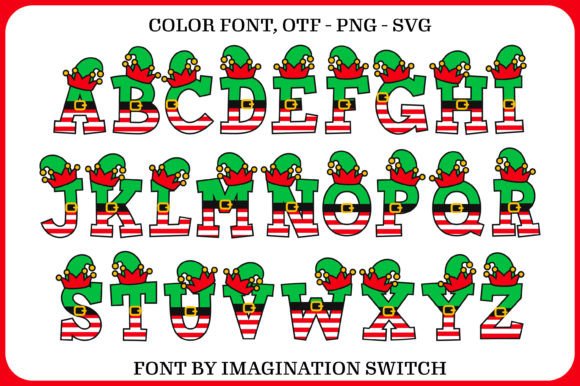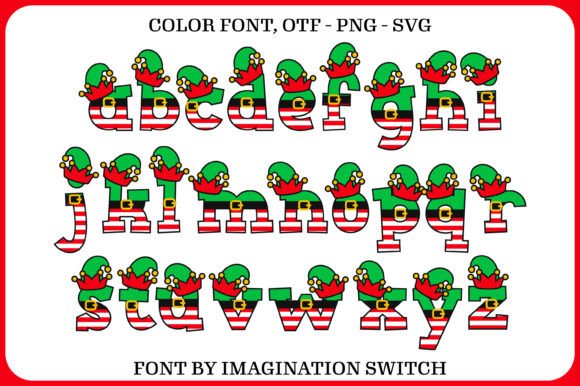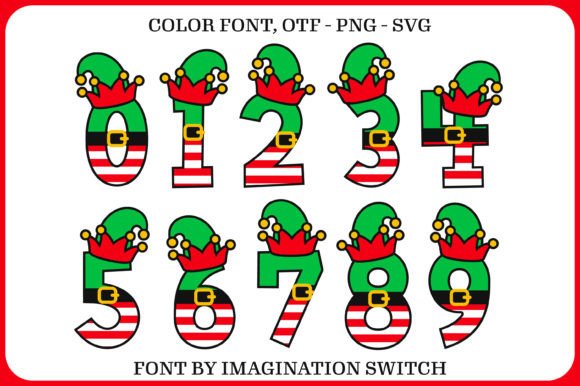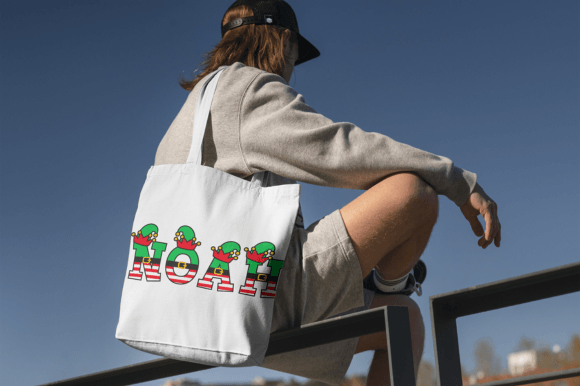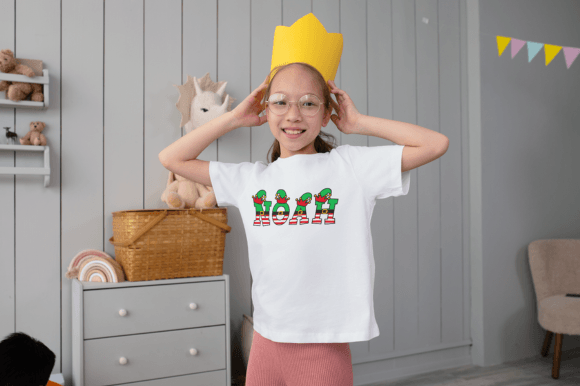
Introduction to Elf Hat Font
Have you ever found yourself rummaging through design resources, searching for that perfect font to elevate your creative project? The moment you stumble upon a unique and captivating font is a moment of pure joy, isn’t it?
Well, we’re thrilled to introduce you to the Elf Hat Font, a stunning typographic creation that’s sure to captivate your audience. With its intriguing colors and meticulously designed characters, this font is a game-changer for designers. Whether you’re working on a print design, web design, or promotional materials, the Elf Hat Font is an ideal choice to add a touch of creativity and uniqueness to your work.
Not only is the Elf Hat Font visually appealing, but it’s also incredibly versatile, making it a valuable resource for designers of all levels.
Key Features of Elf Hat Font
- High-quality design resource perfect for creative projects, including holiday and winter-themed designs.
- Unique characteristics include intricate details and festive elements, adding a touch of magic to any design project.
Honest Review: Elf Hat Font
What works well: ✨ The Elf Hat Font is a high-quality font that offers a transparent background, making it perfect for creative projects that require a seamless blend with other design elements. The font is also highly customizable, allowing you to adjust the size, color, and style to fit your project’s needs.
What doesn’t work so well: ⚠️ While the Elf Hat Font is a great addition to any design project, it’s not without its limitations. The font is limited in its usage, and it may not be suitable for all types of projects. Additionally, the font’s design can be a bit too playful for some projects, so it’s essential to use it judiciously.
Overall impression: The Elf Hat Font is a fantastic addition to any designer’s toolkit. Its unique design and high-quality features make it a great choice for creative projects that require a touch of whimsy. However, it’s essential to use it thoughtfully and consider the project’s tone and style before incorporating it into your design.
- Customizable size, color, and style
- Unique and creative design
The Elf Hat Font is perfect for designs related to fantasy, magic, and whimsy. It’s also great for creating invitations, greeting cards, and other festive designs. Use it to add a touch of personality and creativity to your projects.